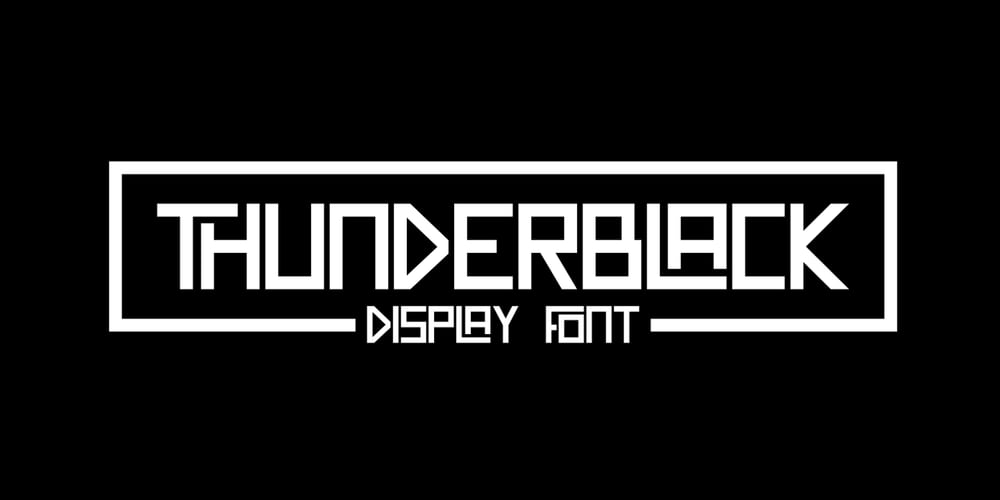
Thunderblack Font Family was designed by Rohmat Sidiq Mustaqim and published by Dieza Design. Thunderblack contains 1 styles and family package options. Thunderblack is a type of display letter that is made with firm lines and angles. This font is very suitable when combined with various types of typography.